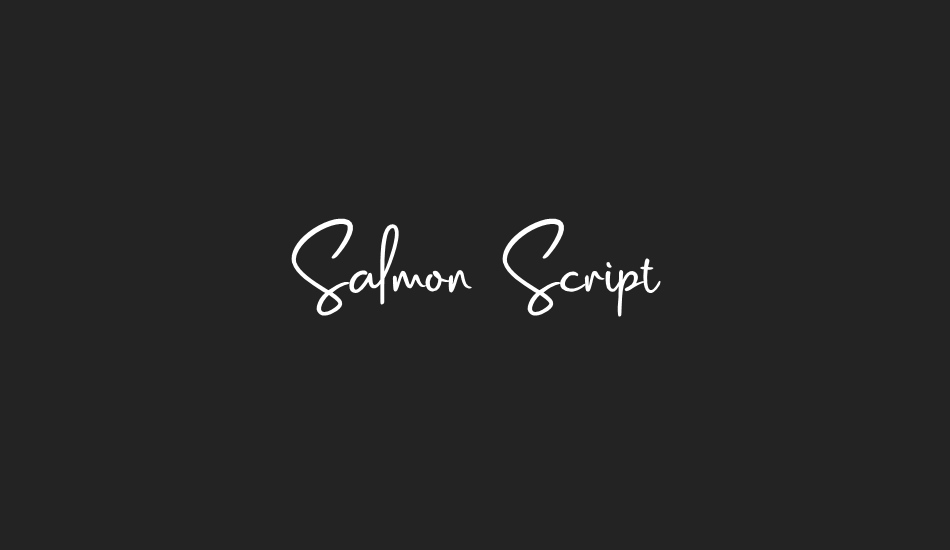
Salmon Script Font
Salmon Script Font is the maximum utilized fonts in the posters with a stylish, and modern-day appearance. It is available for personal use. It’s miles similar to neither strictly geometric in inventory; its kinds are created just so every guy and the female individual is fast and without problem diagnosed. It‚Äôs designed to make the entire customers are without trouble making use of it.
The choice of the perfect font bureaucracy is as large as inclusive of proxima nova font or a man or woman intelligently to a layout. Salmon Script Font Free It has a classical, near noble look and is superb for developing enforcing headlines, at the side of a hint of sophistication to emblems and introducing sophistication to poster designs. It exists to useful aid you to move duties off of your regular listing and waft on. It looks as if collegiate font may be used as an alphabet tattoo and language supergirls.
Download It has blended together an attractive and acquainted that looks effective in a brand or on searching for and promoting card, giving them a seam that’s precise. The whole circle of relatives has a mild and beauty which has made it well-known for the more modest scale of the frame textual content in guides and booklets.